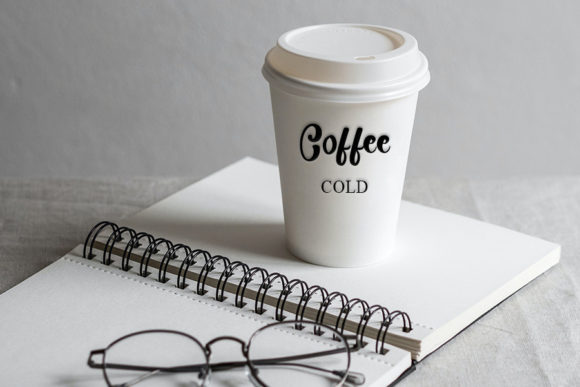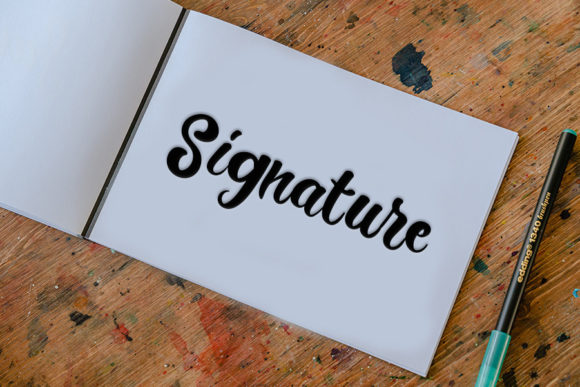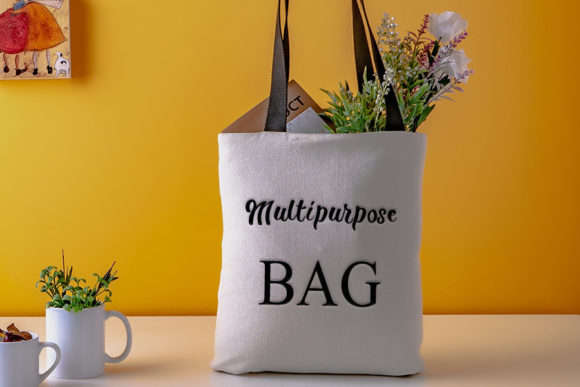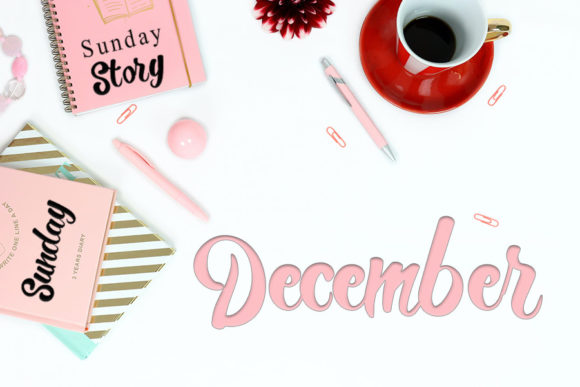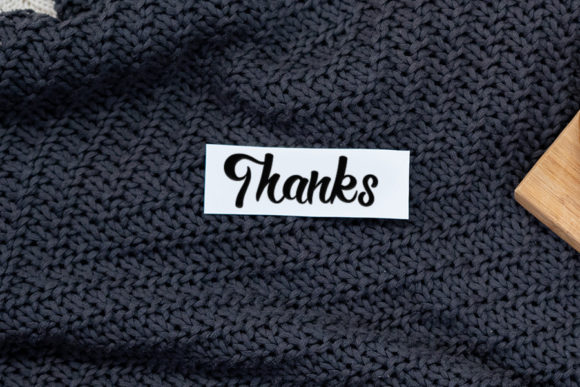
Gamantha Font: The Ultimate Choice for Playful and Creative Designs
Are you a designer or crafter looking for a font that can add a touch of playfulness and sophistication to your designs? Look no further than Gamantha Font! This beautiful handwritten font is perfect for creating eye-catching logos, branding, and quotes that will make your design come alive.
What Makes Gamantha Font So Special?
Gamantha Font is a unique and stylish handwritten font that is designed to add a personal touch to your designs. Every letter has a distinctive and beautiful touch, which sets it apart from other fonts. The font is carefully crafted to be both playful and smart-looking, making it perfect for a wide range of design projects.
Key Features of Gamantha Font
- Playful and Smart-Looking: Gamantha Font has a unique blend of playfulness and sophistication, making it perfect for designs that require a touch of personality.
- Handwritten Style: The font has a beautiful handwritten style that adds a personal touch to your designs.
- Unique Lettering: Every letter in Gamantha Font has a unique and beautiful touch, which sets it apart from other fonts.
Why Choose Gamantha Font?
- Perfect for Logos and Branding: Gamantha Font is perfect for creating eye-catching logos and branding that will make your business stand out.
- Great for Quotes and Sayings: The font is also great for creating beautiful quotes and sayings that will add a touch of personality to your designs.
- Versatile: Gamantha Font can be used for a wide range of design projects, from digital designs to print materials.
- Use for Headings and Titles: Use Gamantha Font for headings and titles to add a touch of personality to your design.
In conclusion, Gamantha Font is a beautiful and versatile handwritten font that is perfect for designers and crafters. Its unique and stylish lettering makes it perfect for creating eye-catching logos, branding, and quotes. With its ease of use and high-quality design, Gamantha Font is the ideal choice for any design project.